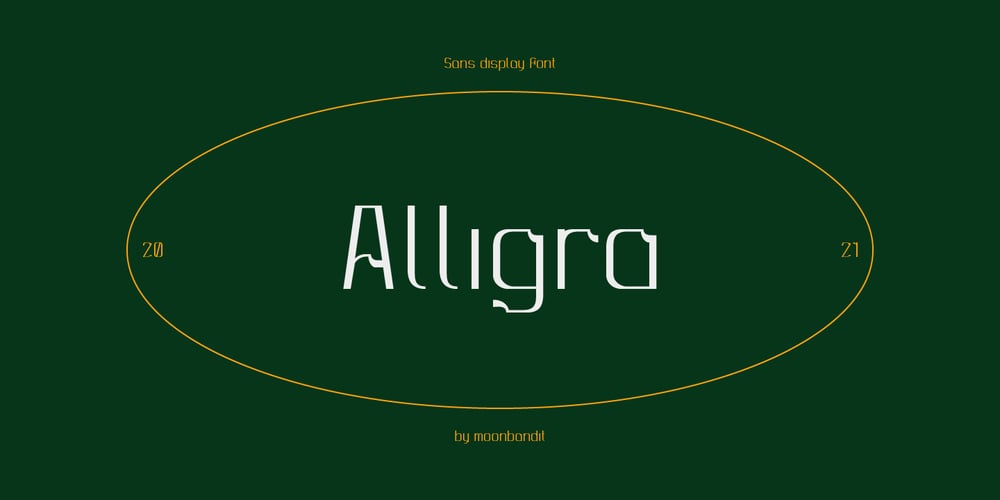
MBF Alligra Font Family was designed by Bramaji Dipa Manggala and published by Moonbandit. MBF Alligra contains 1 styles and family package options. MBF Alligra is a modern geometric display font. It is inspired by a combination of modern digital life and the free will of human nature. This typeface is a perfect choice for urban life theme. Use Alligra as a logo, poster, headline, title, text and many more.